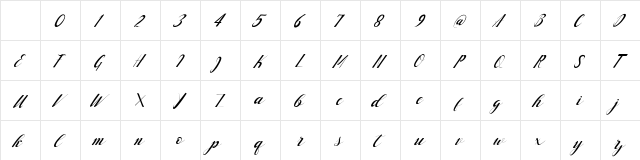
Complete handlove Regular glyph index. Displaying only characters natively supported by handlove Regular font.
handlove flows with the natural rhythm of handwritten lettering, making it ideal for designs that call for warmth and personal expression.
Font Pairing: Combine handlove with a simple geometric sans for maximum contrast - the tension between flowing curves and clean structure is a classic typographic pairing.
Pro Tip: Use handlove for short runs of text - names, titles, or taglines. Extended body copy in script faces tires the eye quickly.